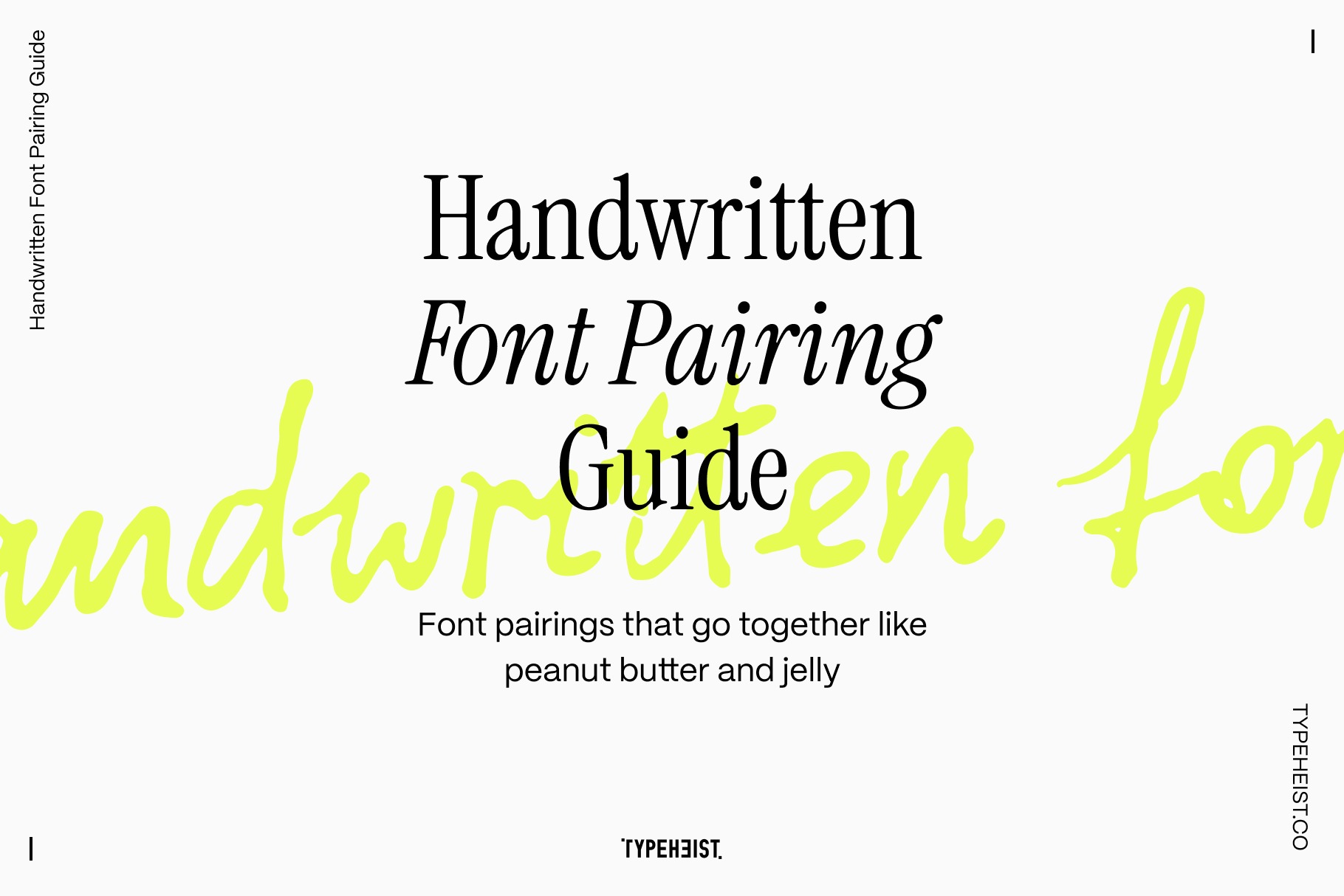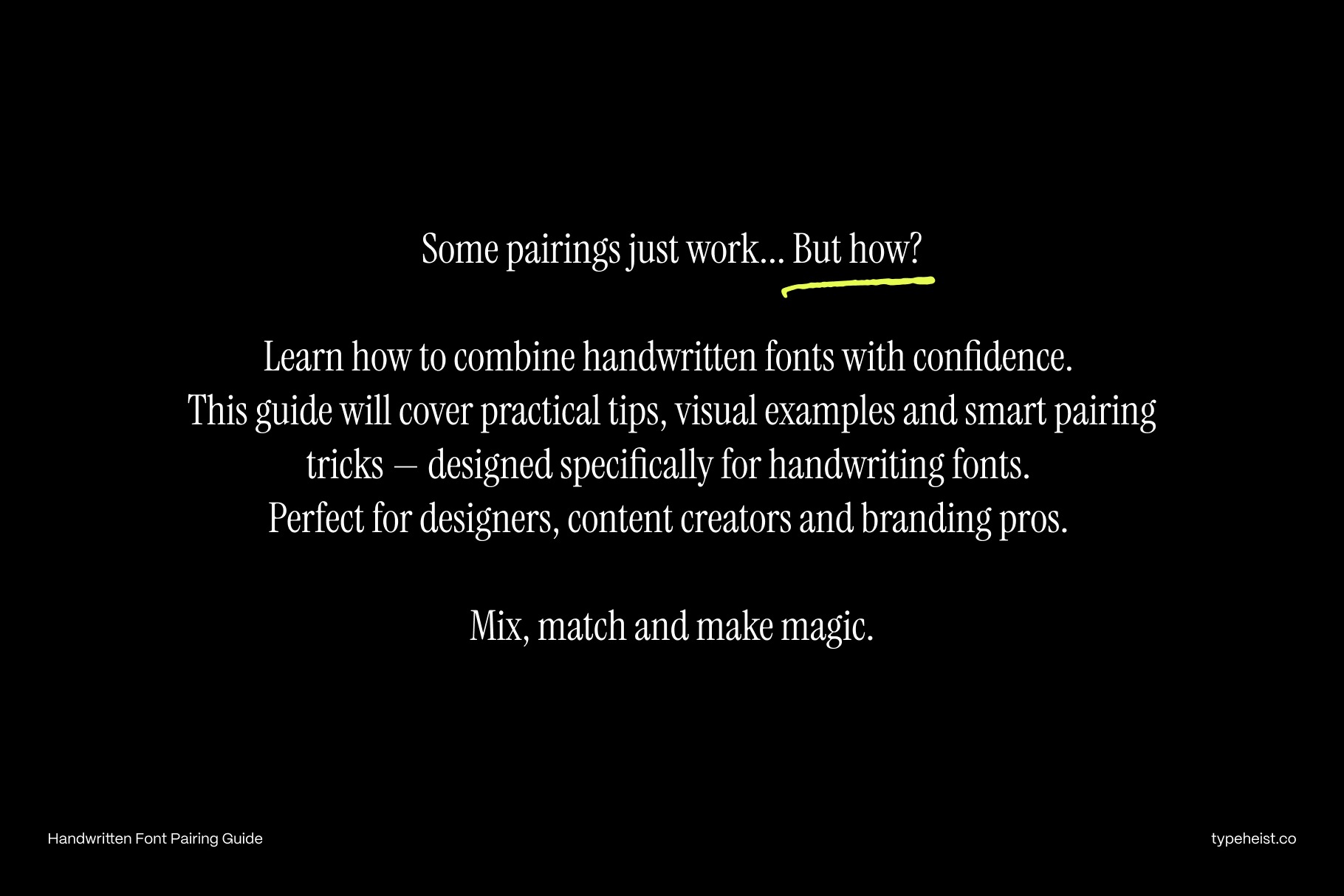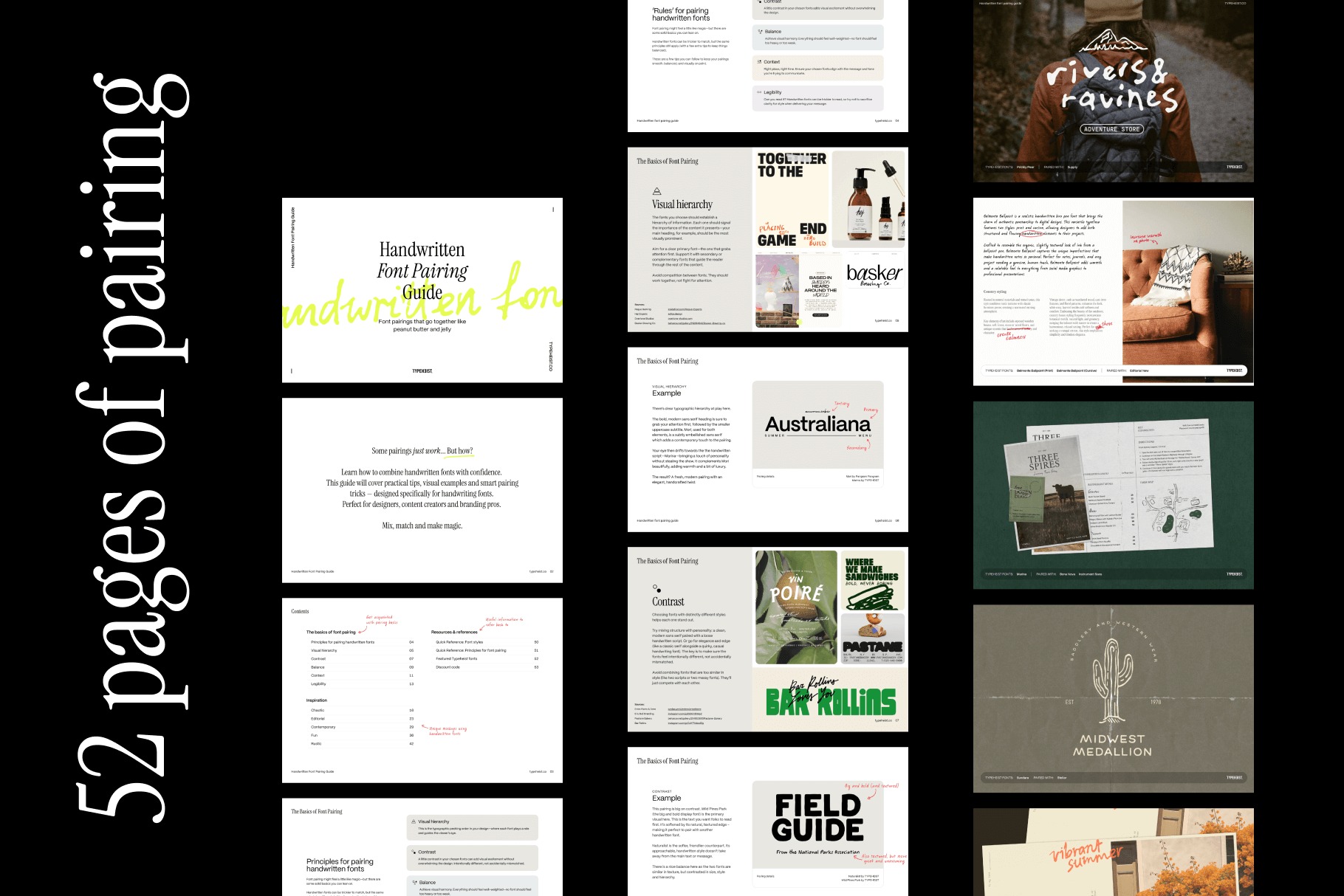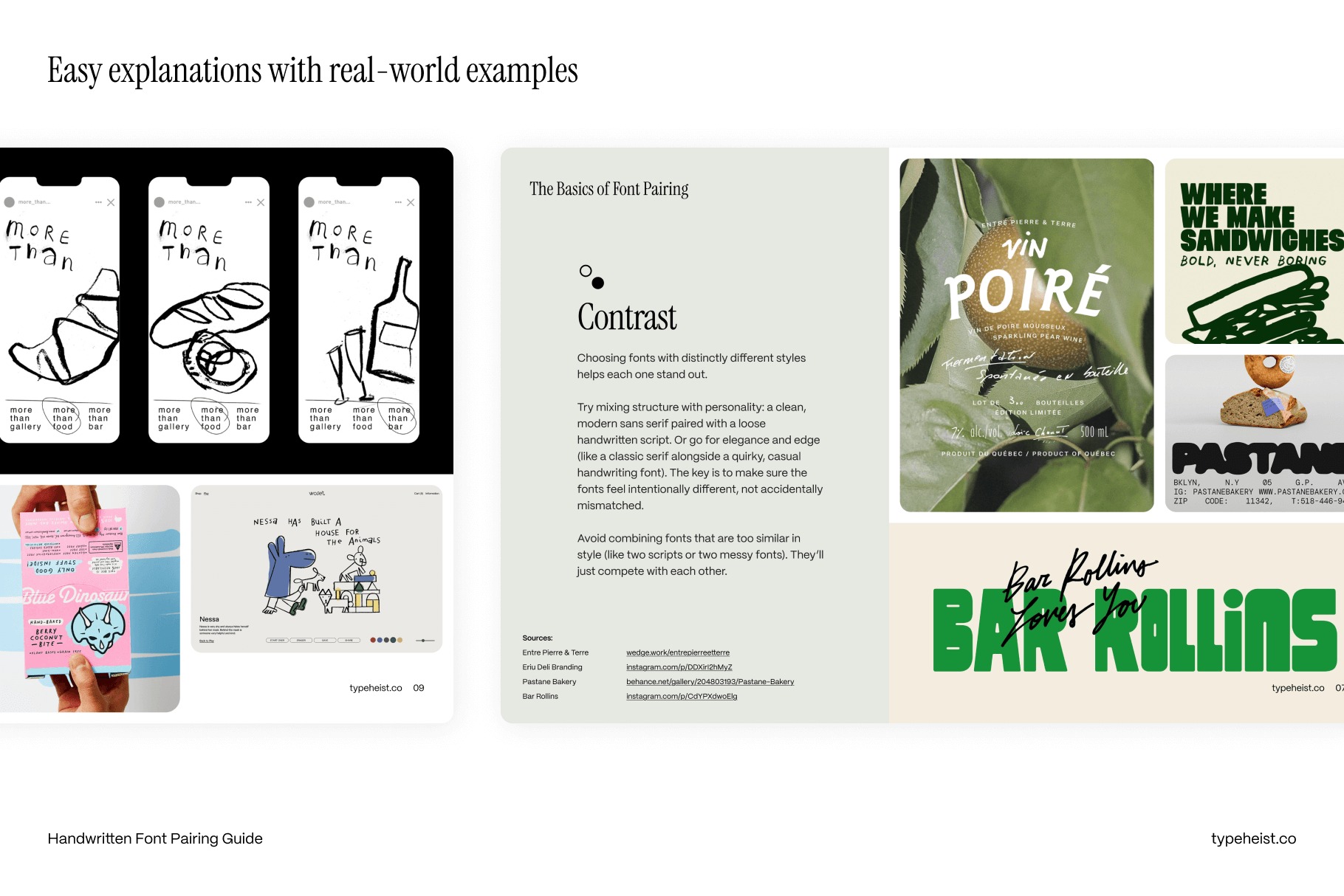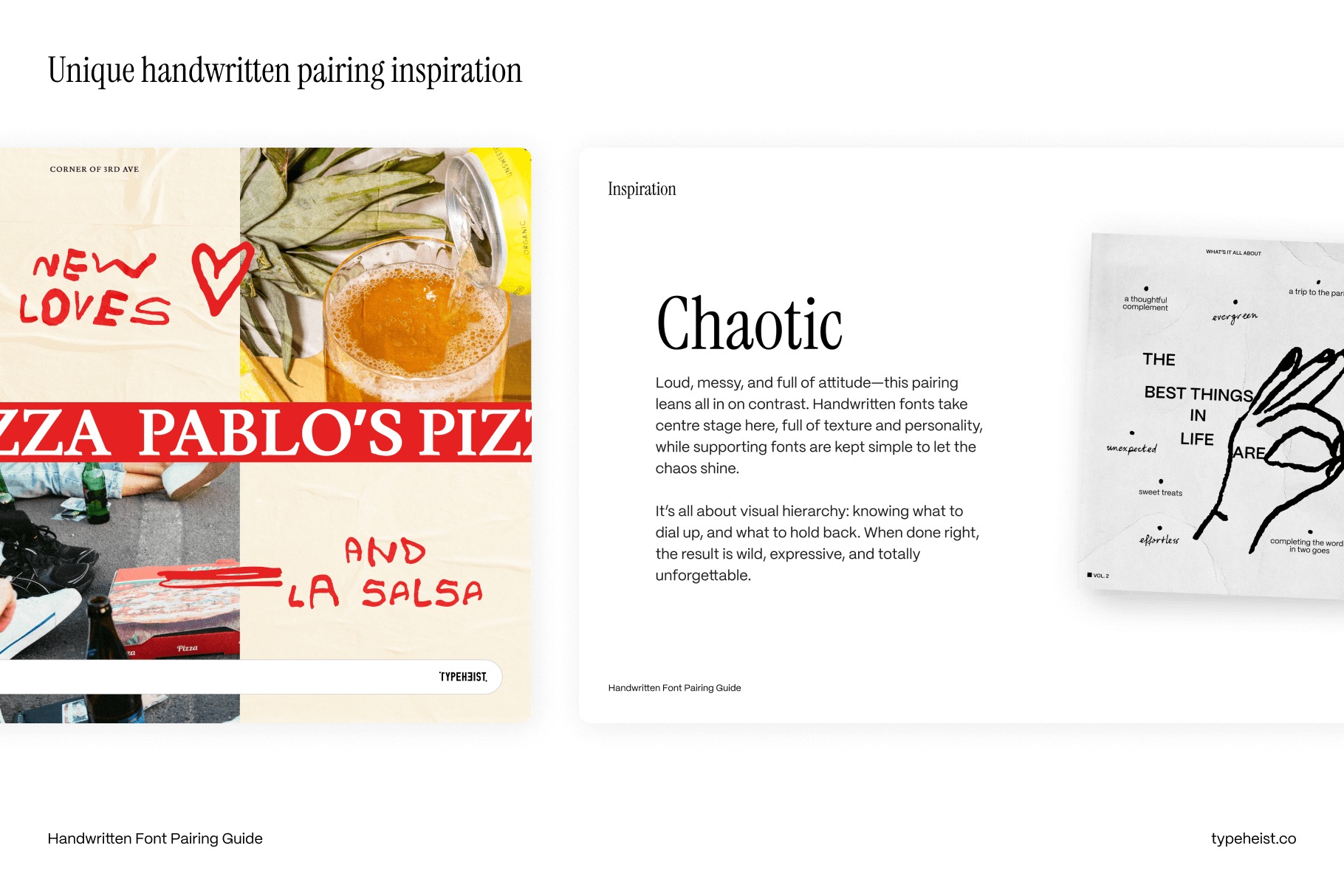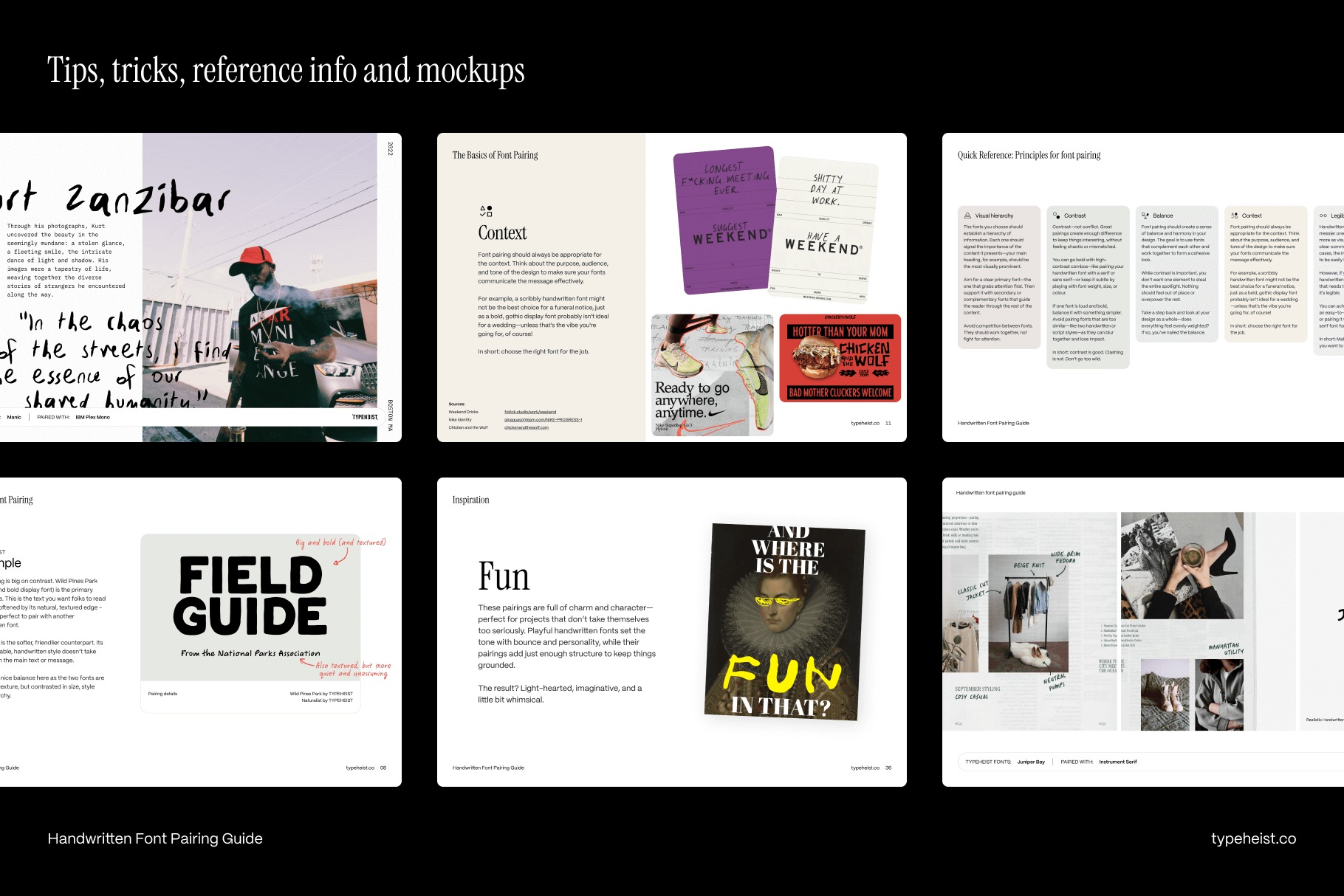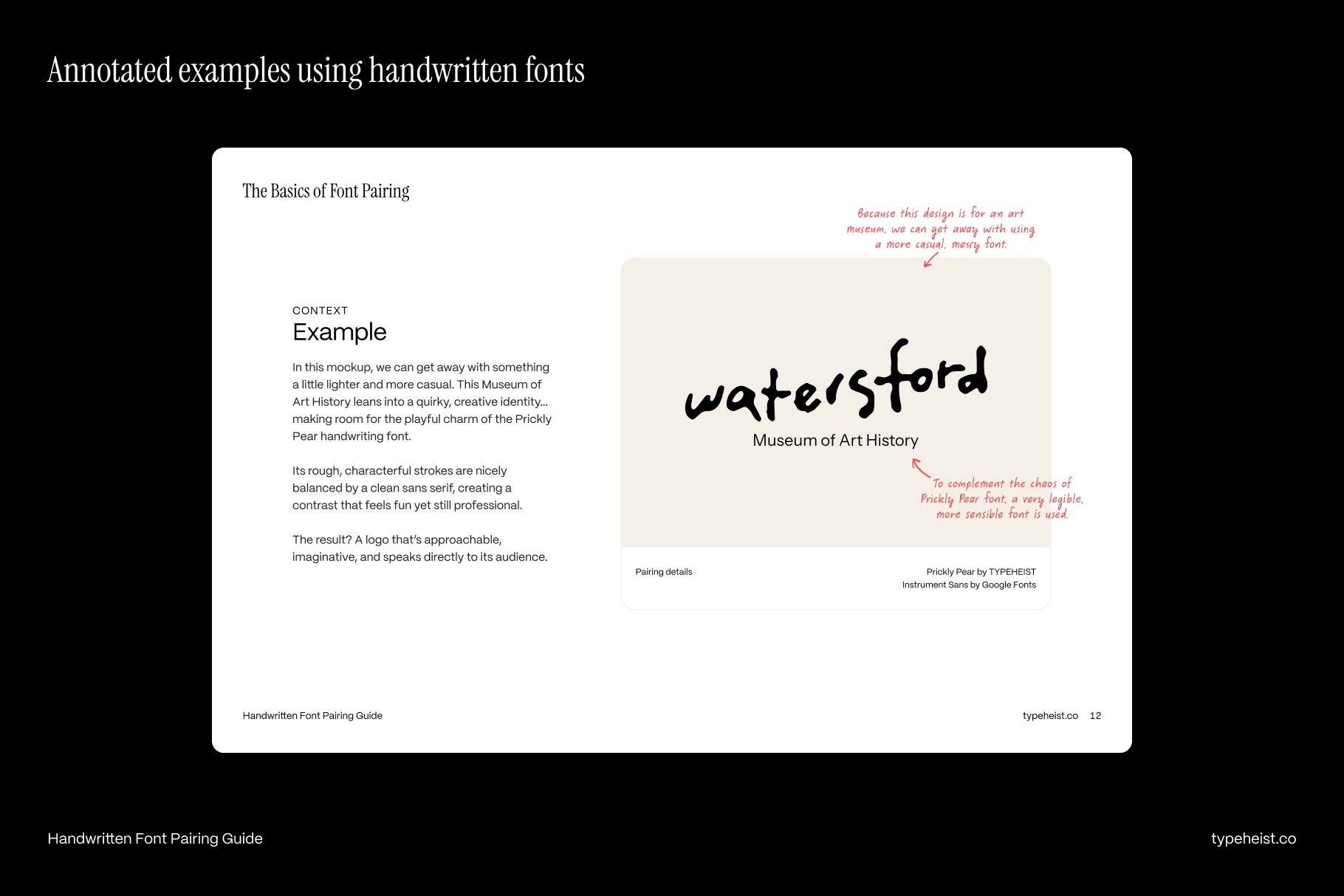
Handwritten Font Pairing Guide | TYPEHEIST
Font pairings that go together like peanut butter and jelly. Practical tips, visual examples and smart pairing tricks — designed specifically for handwriting fonts.